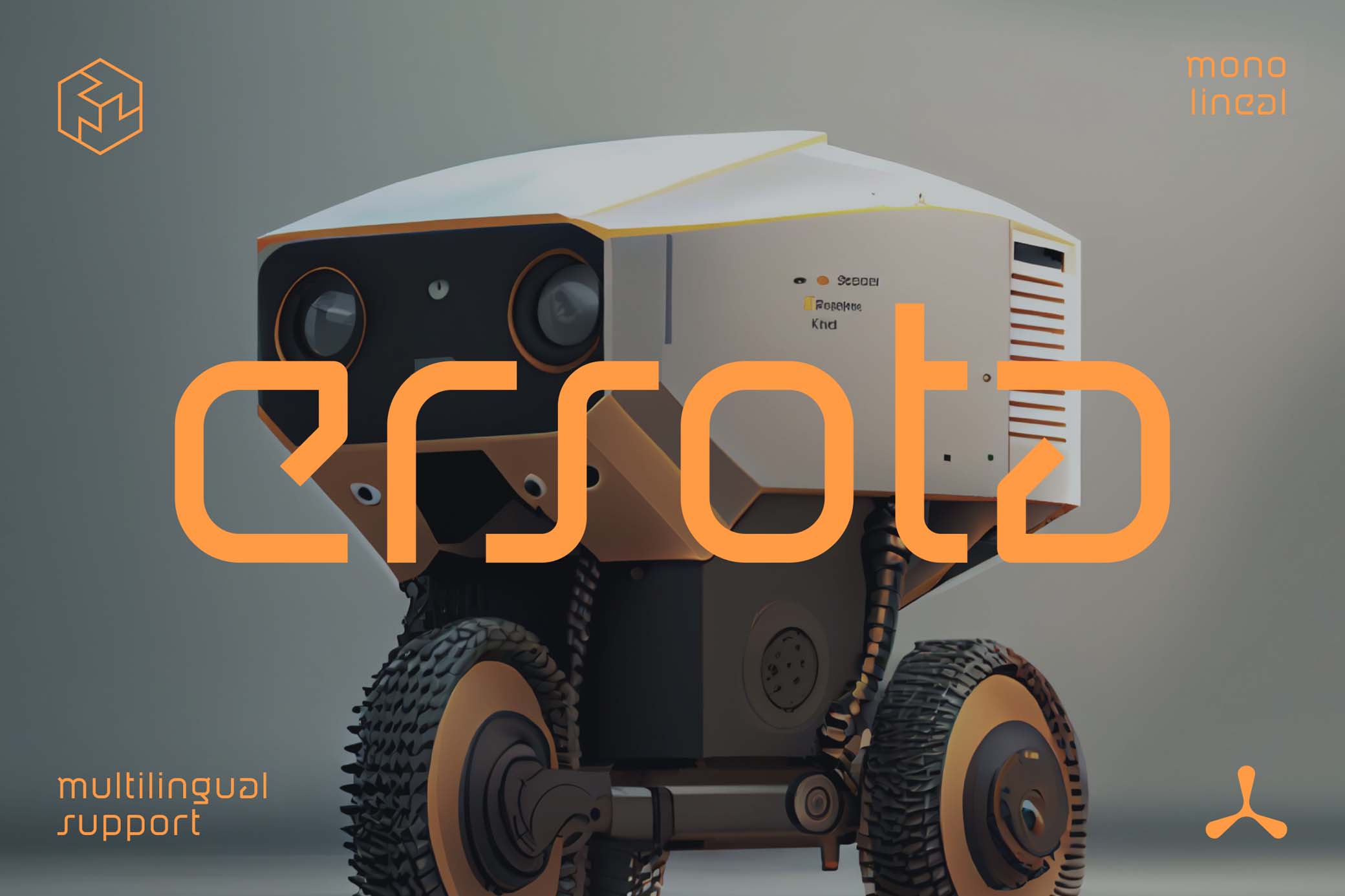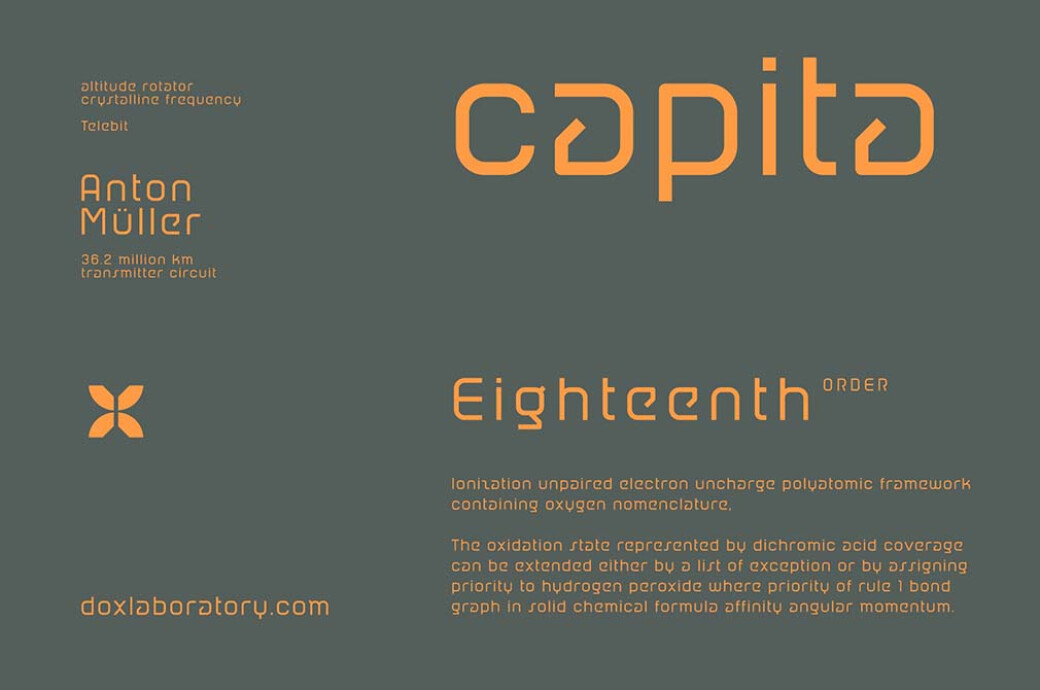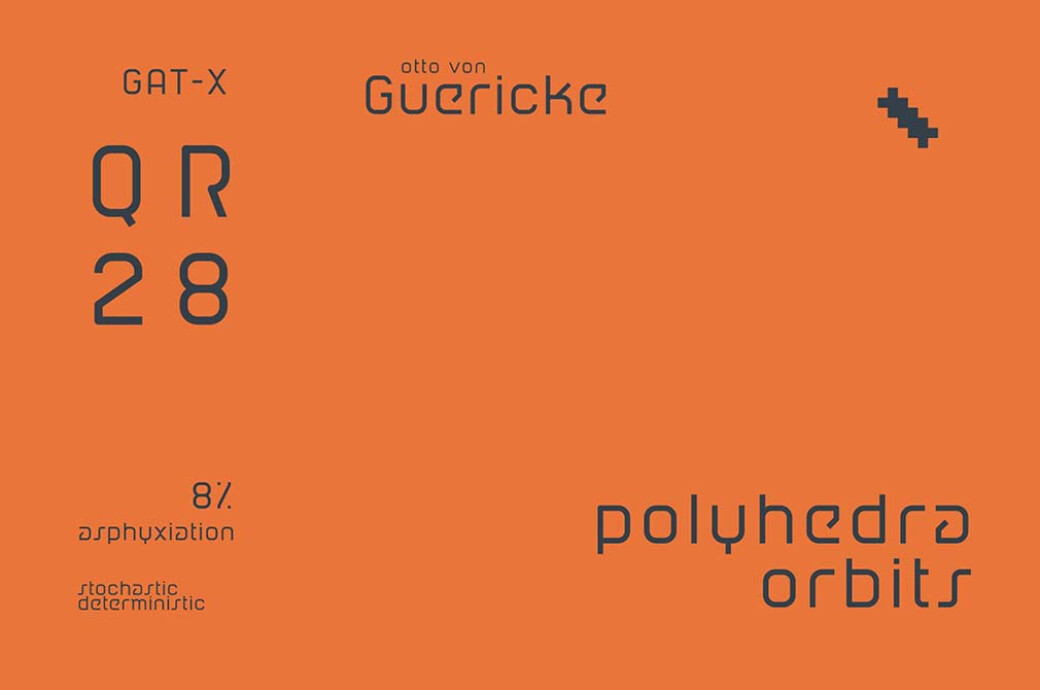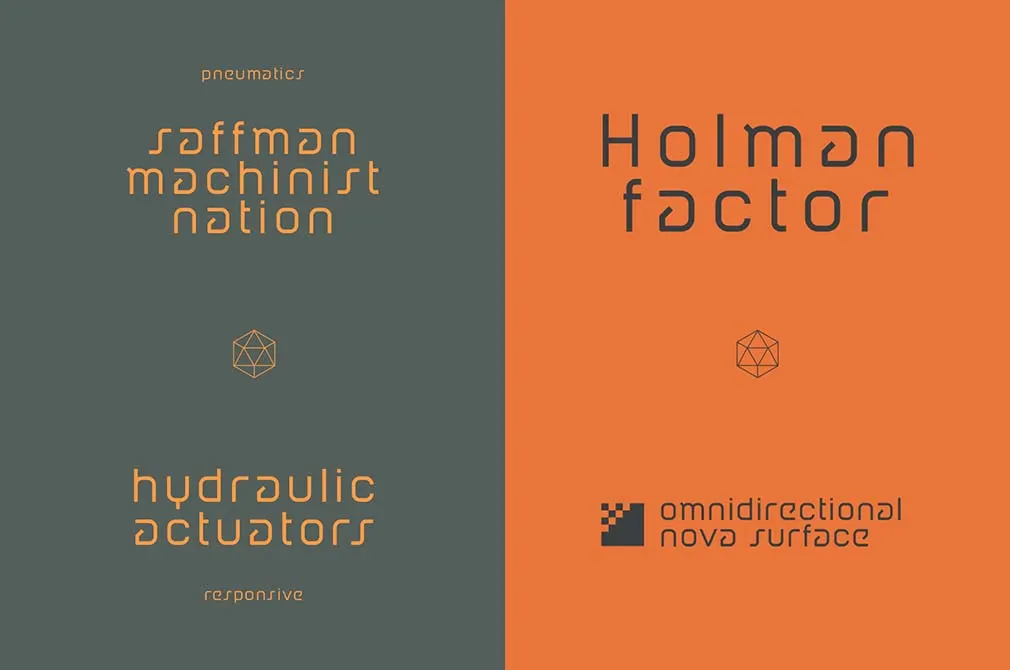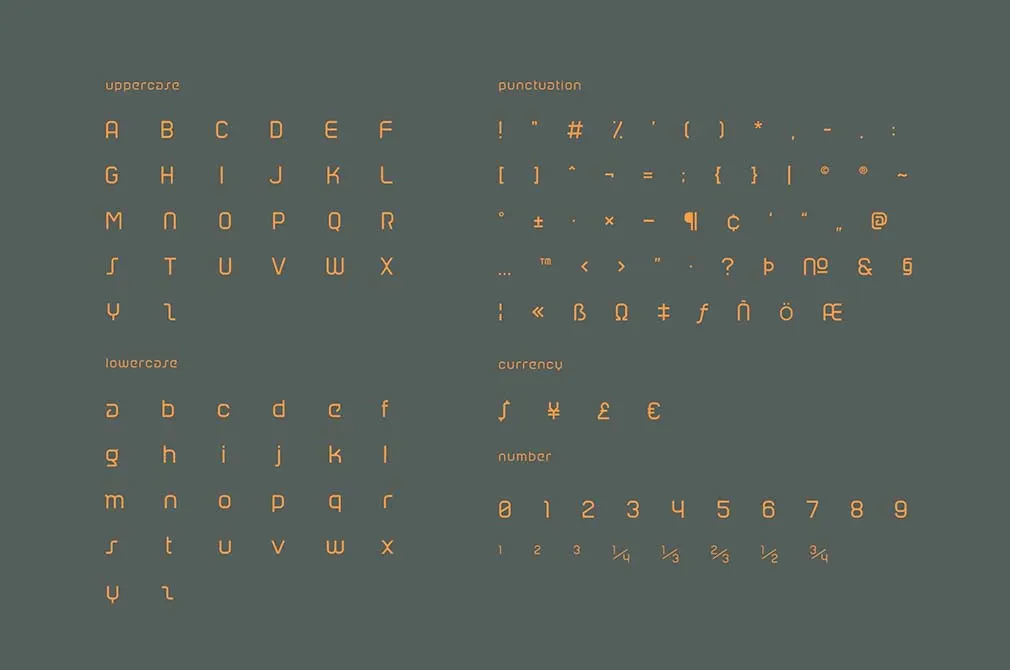
Ersota Futuristic Tech Font
What's as cute as WALL-E but still as brutal as Death Stranding? It's the Ersota, a futuristic font worth the best sci-fi masterpieces.What we like most in futuristic and tech typography are clean lines and geometric glyphs that would suit any spaceship logo. And these are precisely the things you will find in Ersota. This monolinear display type conveys an unmistakable sci-fi vibe and includes over 220 glyphs: upper and lowercase letters, international characters, punctuation, and numbers. Despite featuring it in relevant projects, you can use the font in "regular designs" as well. For example, apparel prints, stickers, posters, or client branding.